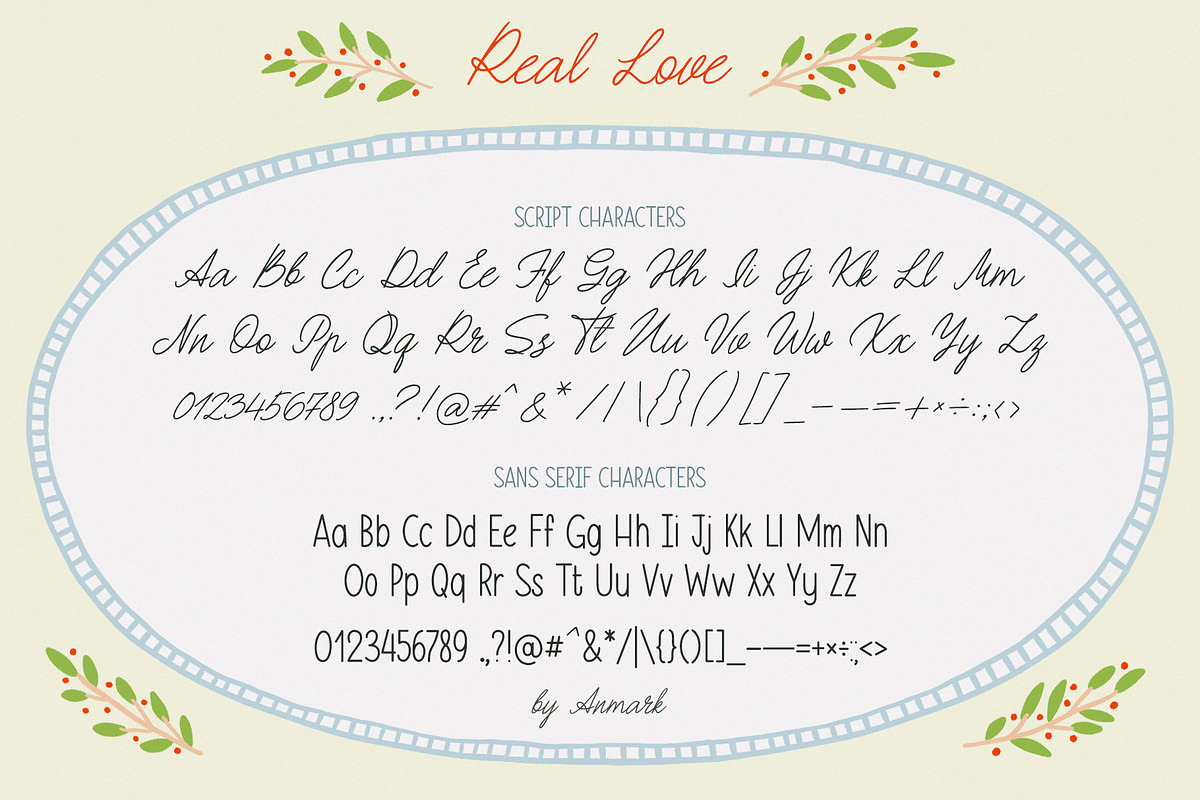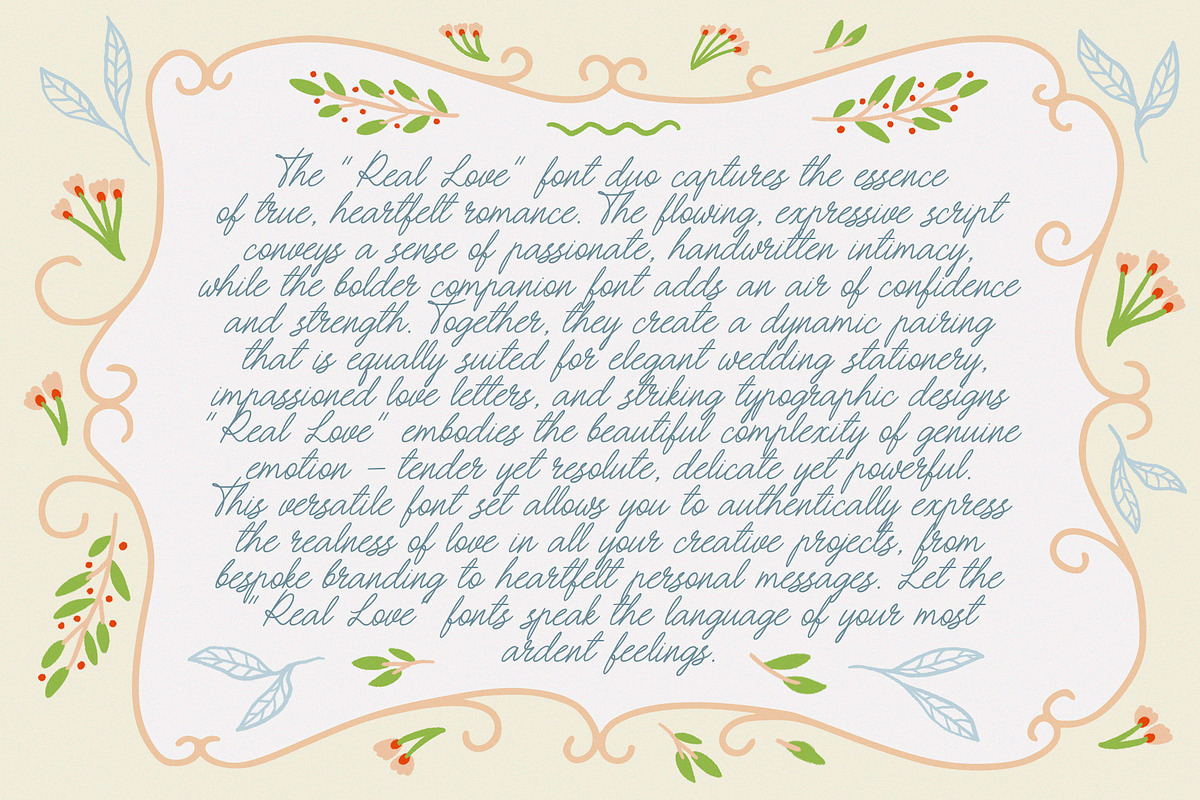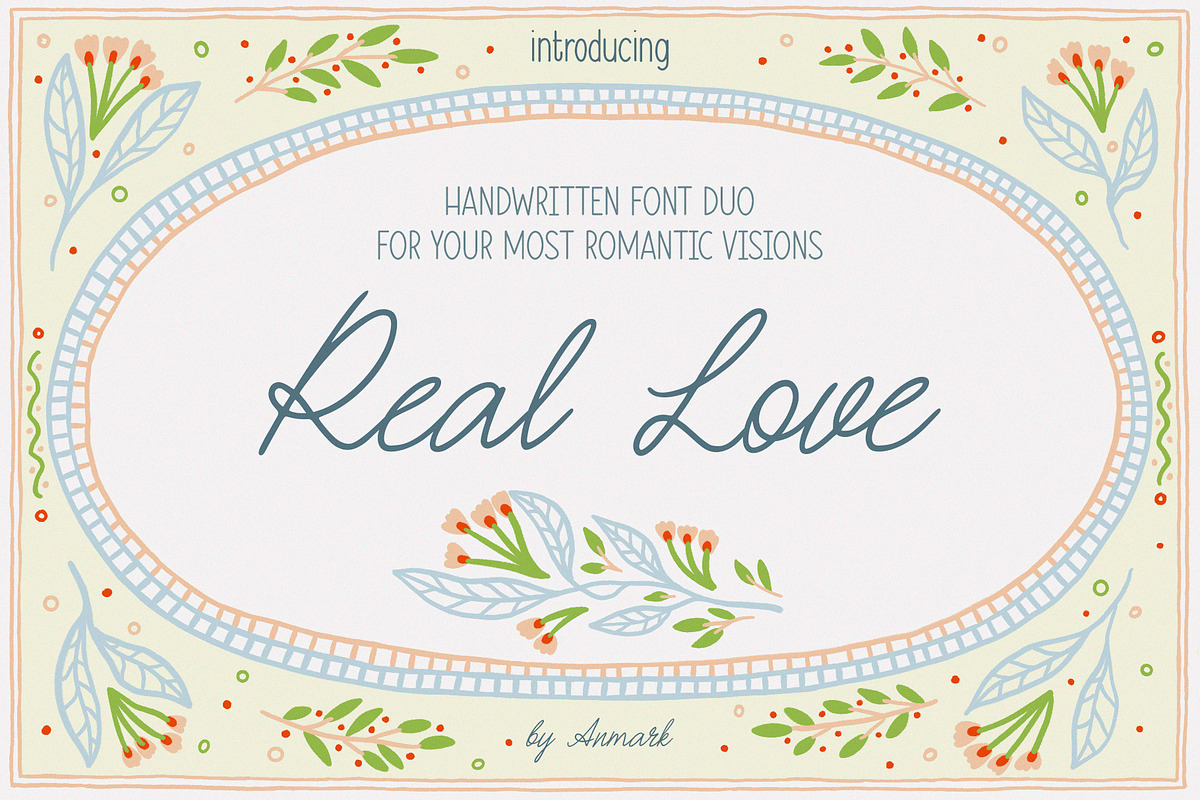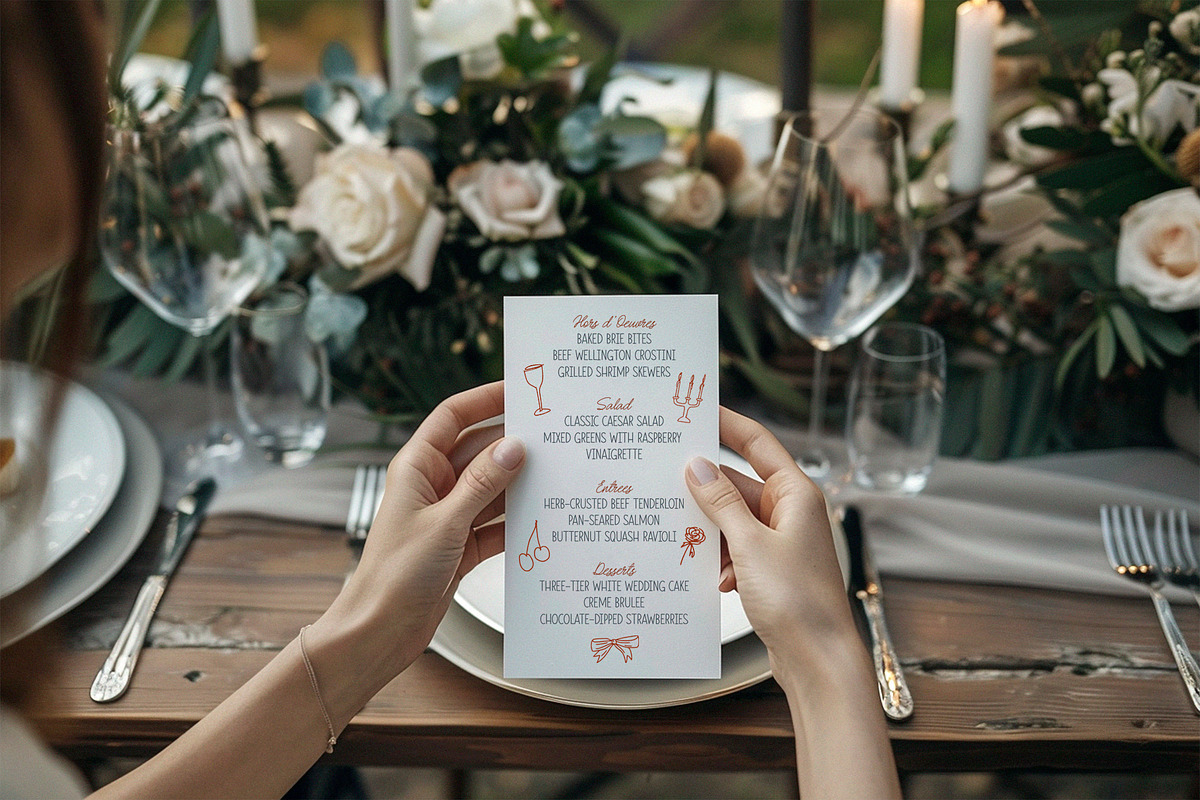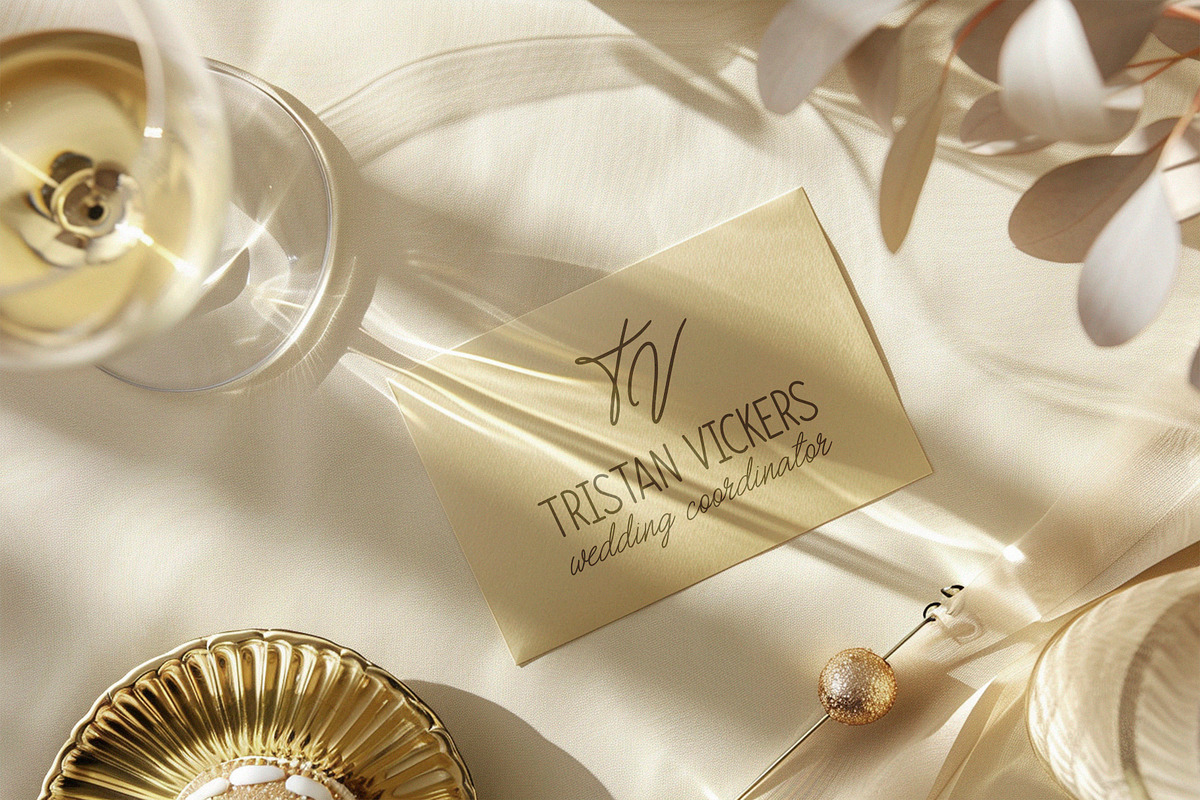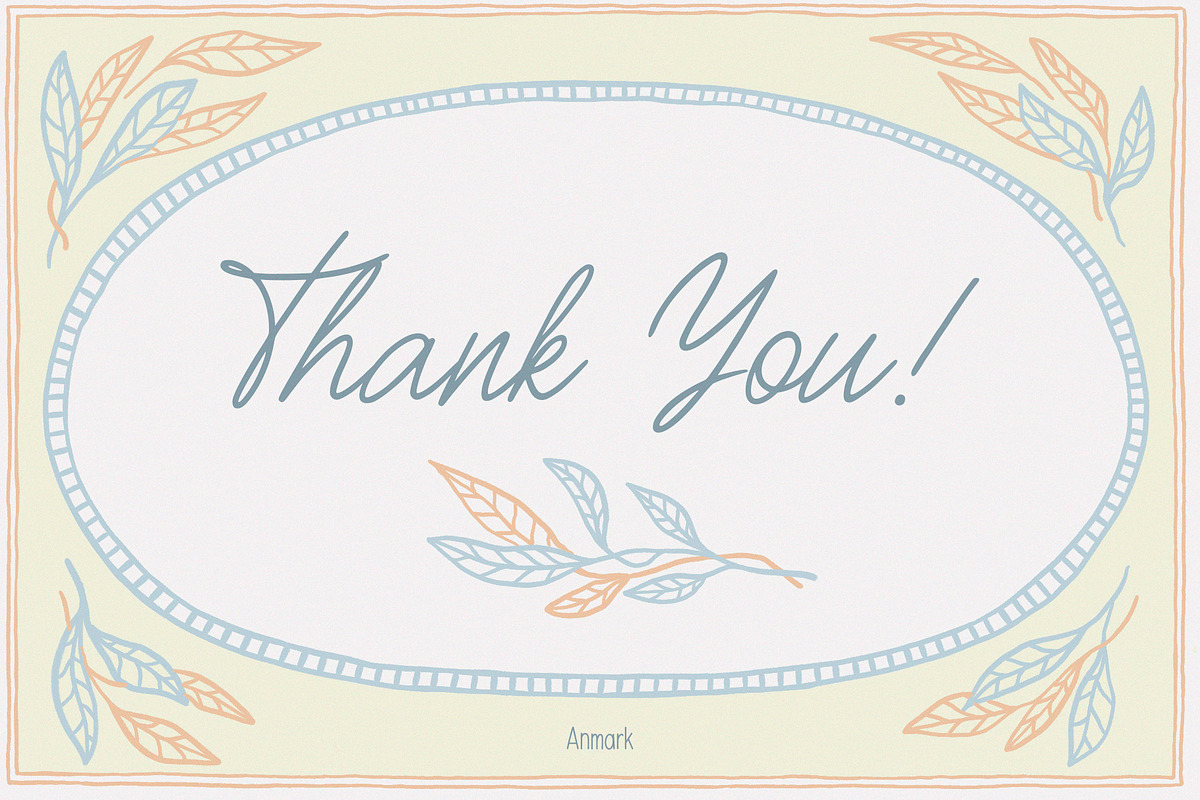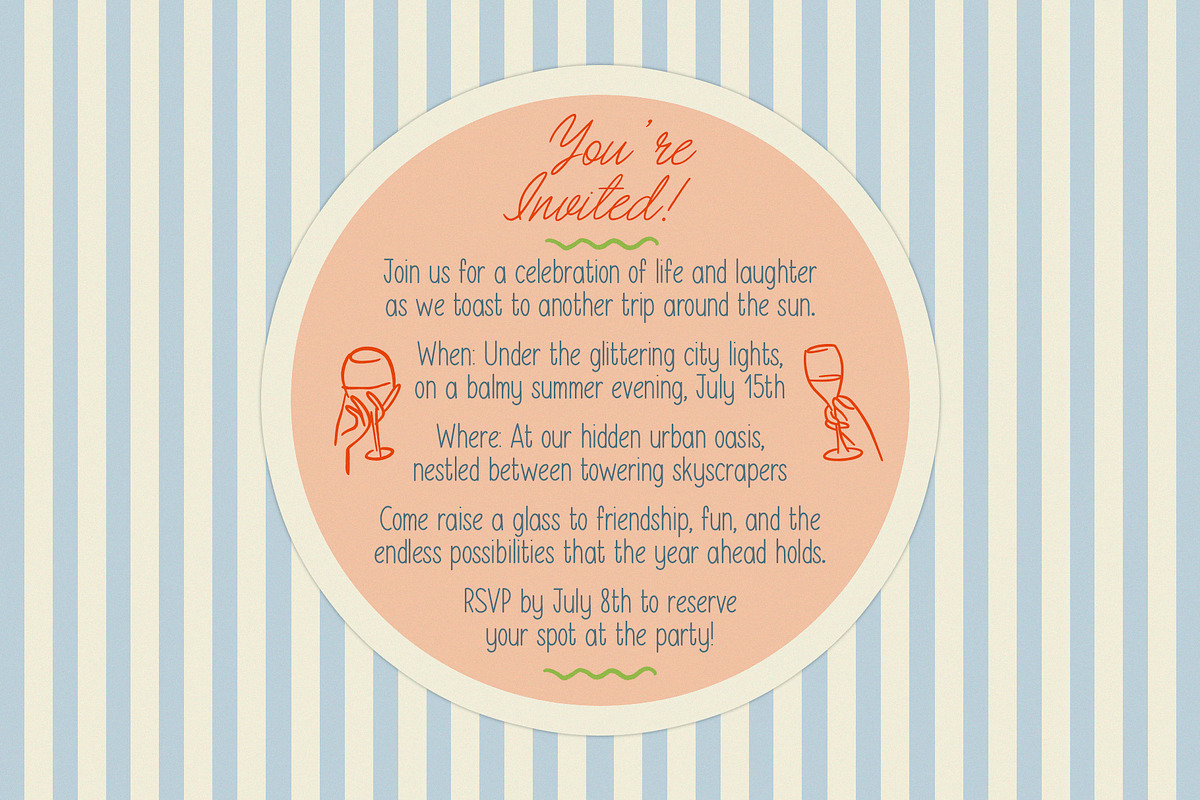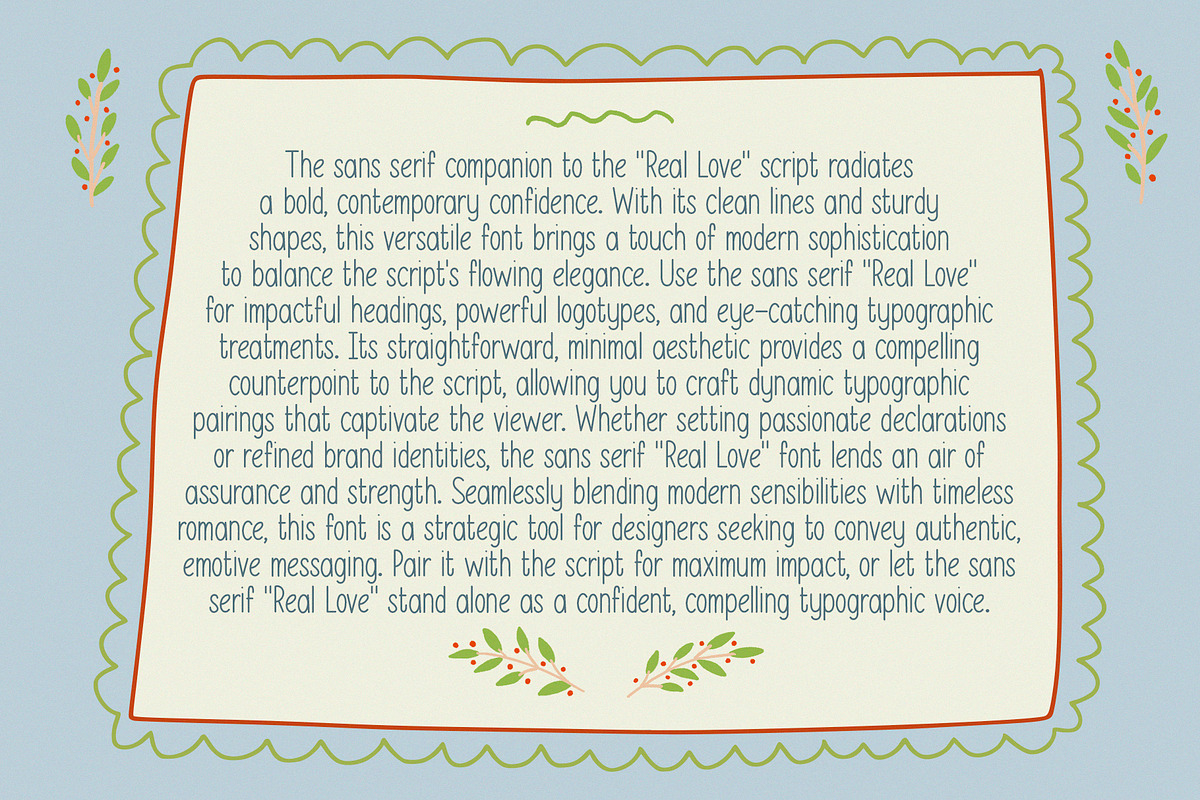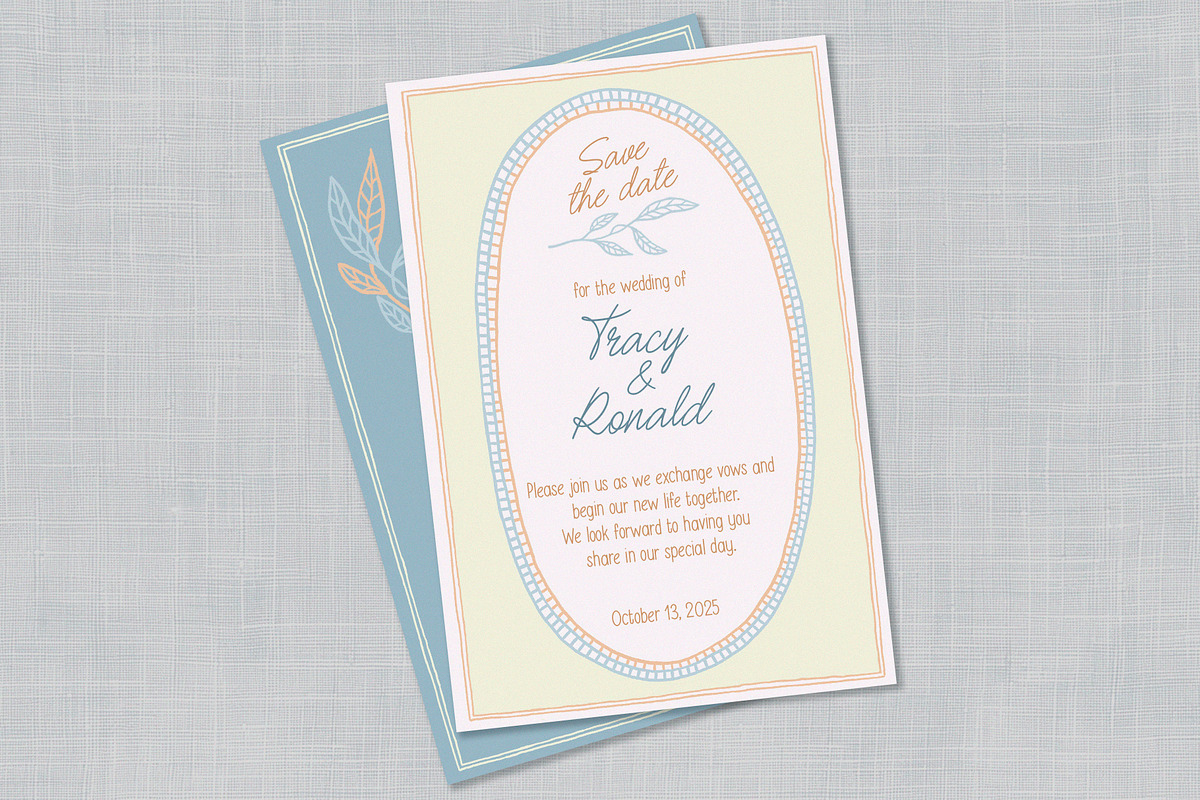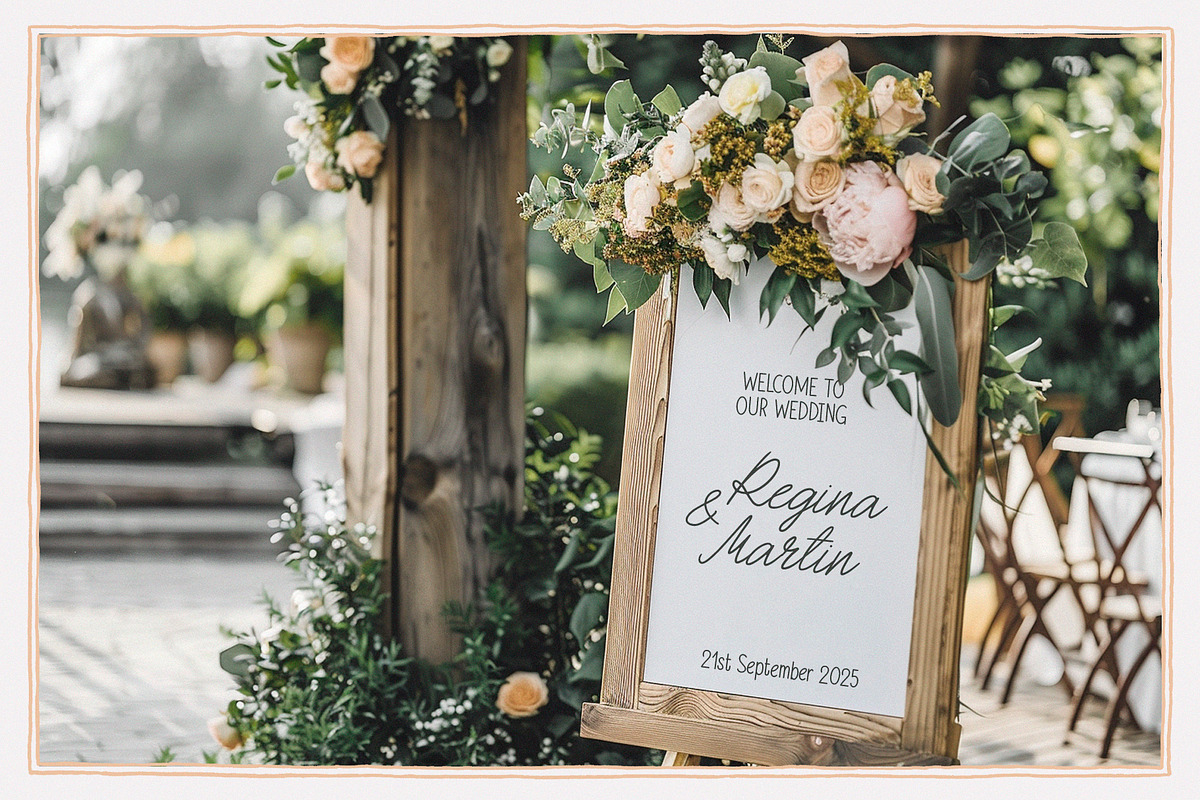
Real Love Wedding Font Duo
Real Love wedding font duo is a versatile duo featuring both a flowing script and modern sans serif style. The script version captures the essence of timeless romance with its elegant, hand-lettered strokes, perfect for wedding invitations and decor. Paired with the bold yet refined sans serif, designers have a toolkit to create wedding branding that balances classic elegance and contemporary sensibilities.
Whether used individually or together, Real Love font empowers couples to express the joy, vulnerability, and enduring love at the heart of their special day. Its balance of traditional romanticism and stylish flair makes it an invaluable asset for wedding-themed designs.